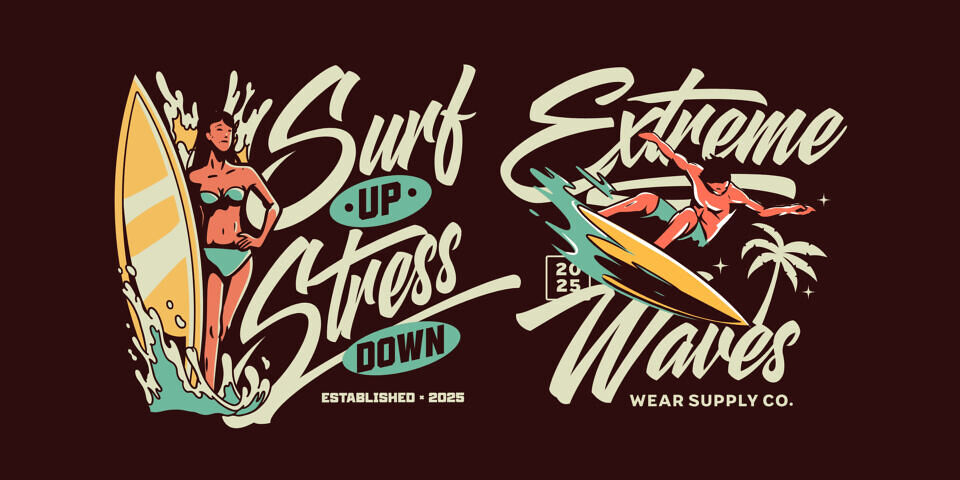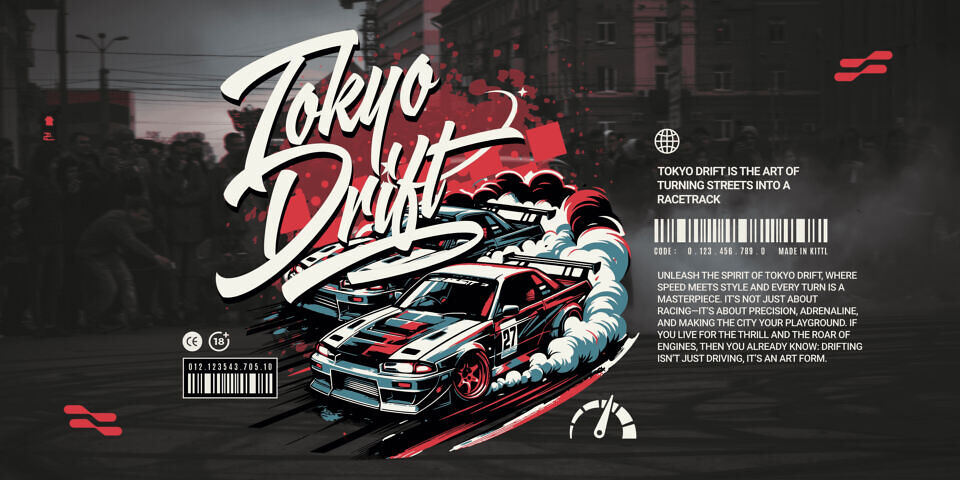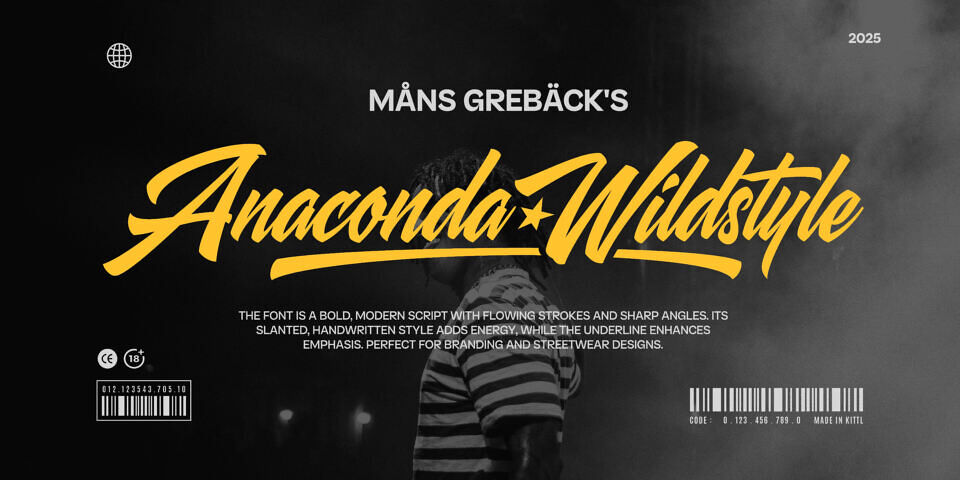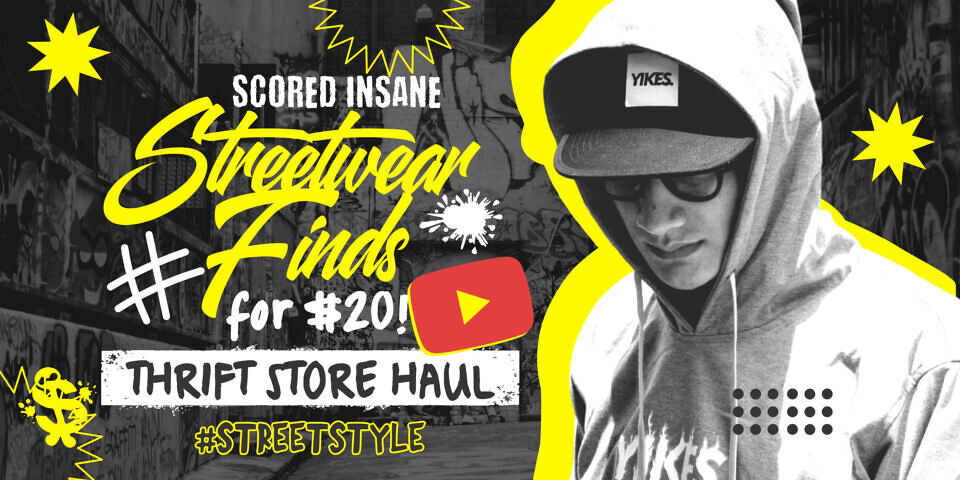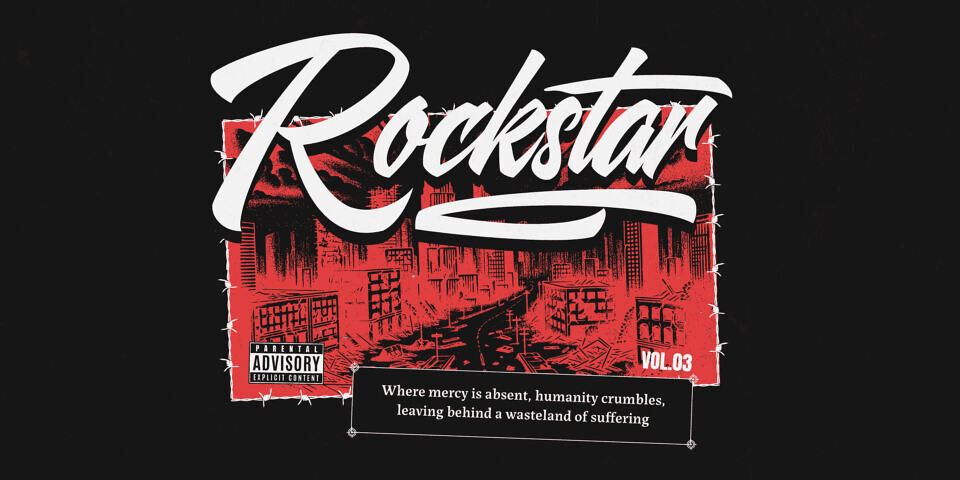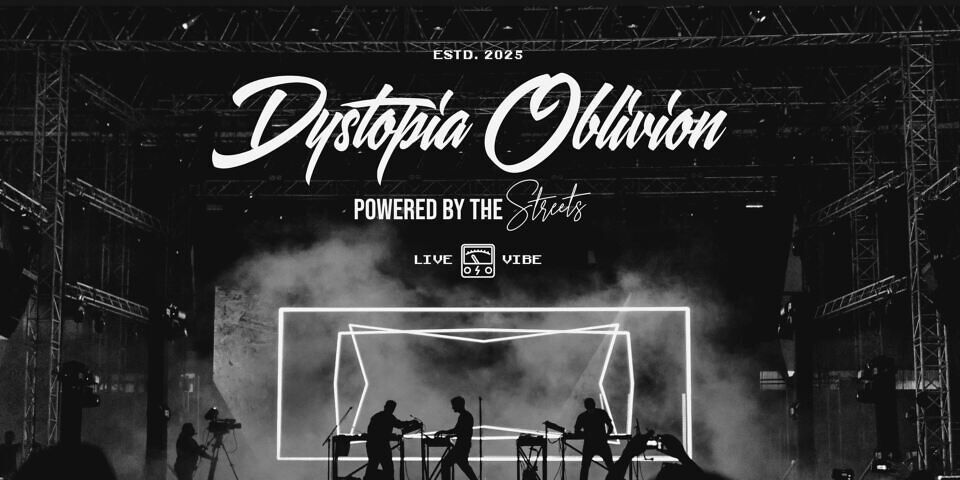
Anaconda Wildstyle Font
Anaconda Wildstyle is a typeface with unbridled energy, evoking a sense of freedom and bold self-expression. This serpentine lettering has a striking, unrestrained design and flows and curves with a wild spirit. Anaconda Wildstyle is perfect for everything from edgy clothing branding to unique skate park posters.
Use underscore _ to make a swash under any word.
• Example: Free_dom
Use multiple underscores to make different underlines.
• Example: Hawk________liners
The font is built with advanced OpenType functionality and guaranteed top-notch quality, containing stylistic and contextual alternates, ligatures and more automatic and manual features; all to give you full control and customizability.
It has extensive lingual support, covering all Latin-based languages, from North Europa to South Africa, from America to South-East Asia. It contains all characters and symbols you’ll ever need, including all punctuation and numbers.
Anaconda Wildstyle will add just that right amount of edge and distinctiveness that you are looking for, letting you create standout designs with a personal feel. Designed by Mans Greback.